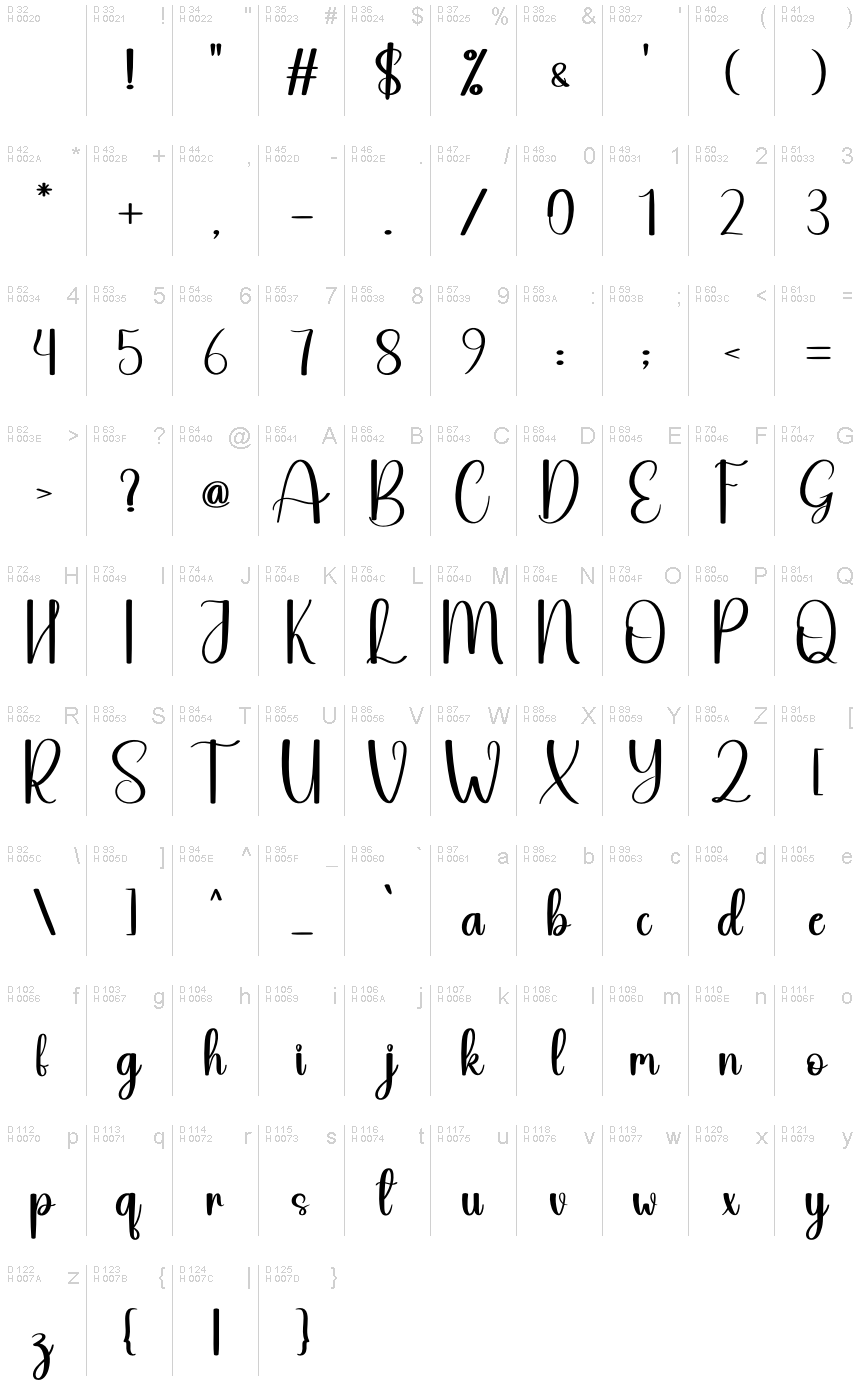
Simple Love
Simple Love is a captivating handwritten font designed by Andi Moz. Its fluid, organic strokes and playful ligatures instantly convey a sense of warmth and intimacy. The font's effortless elegance shines through in its varied letter forms, seamlessly blending whimsy and sophistication.
With its versatility, Simple Love lends itself beautifully to a wide array of design applications. From wedding invitations and greeting cards to branding and packaging, this font's timeless appeal can elevate any project with its enchanting, handcrafted aesthetic. Its unique character imbues designs with a touch of personalization, creating a genuine, heartfelt connection with the viewer.